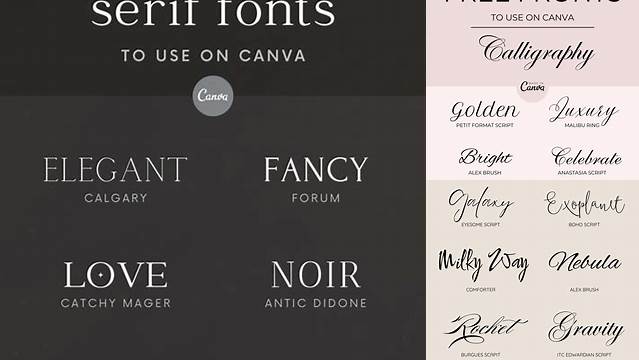
Canva's Elegant Fonts: A Design Guide
Canva, a powerhouse of design, offers a treasure trove of fonts to spice up your projects. But, with so many choices, how do you pick the ones that scream "elegance"? Fear not, design enthusiasts! We're diving deep into the world of elegant fonts in Canva, exploring what makes them special, and how you can use them to create stunning visuals. Whether you're crafting social media posts, presentations, or marketing materials, the right font can make all the difference. Get ready to unlock the secrets of sophisticated typography!
What Defines an Elegant Font?
Before we jump into the font recommendations, let's nail down what makes a font "elegant." Elegant fonts typically possess certain characteristics that lend a touch of sophistication and class to your designs. Think of it as the font equivalent of a perfectly tailored suit or a flowing evening gown – it's all about the details!
First off, legibility is key. While some fonts may look fancy, they become useless if your audience can't easily read them. Elegant fonts often strike a balance between style and readability. They are designed with careful consideration of letterforms, spacing, and overall structure, ensuring that the text is both visually appealing and easy to understand. This is particularly crucial for body text, where readability trumps all else. On the other hand, for titles and headings, you can get away with a bit more flair. These fonts may be more decorative, but still maintain a sense of clarity.
Secondly, the font's style contributes a great deal to elegance. Serif fonts frequently top the list of elegant choices. Serifs are the small strokes or "feet" at the ends of the letters, and they bring a classic, refined feel. They evoke a sense of tradition, authority, and trustworthiness, making them ideal for branding and formal documents. Think of fonts like Playfair Display, Lora, and Crimson Text—they’re your go-to choices for a touch of sophistication. However, sans-serif fonts can also be elegant. The clean lines of fonts like Raleway, Montserrat, or Lato can convey a sense of modern elegance, particularly when combined with a minimalist design.
Then, consider the font's weight and style. Light or delicate weights often appear more elegant than bold ones. However, a heavier weight can also be elegant, especially in headings, if used with proper spacing and in balance with other design elements. Italics and condensed fonts can add a further level of sophistication, but use them sparingly to avoid overwhelming the reader. Finally, elegance often lies in subtlety. Avoid overly ornate fonts that might distract from your message. Instead, choose fonts that complement your overall design, allowing the content to shine.
Top Elegant Fonts in Canva
Now for the fun part: the fonts! Canva offers a wide selection of elegant fonts. Here are some of the top picks, categorized to help you choose the perfect one for your project. Remember, the best font is the one that perfectly complements your design's message and aesthetic.
Serif Fonts: Classic and Timeless
Serif fonts are the backbone of elegance. They exude a sense of tradition and sophistication. Here are some of the best serif fonts available in Canva:
- Playfair Display: This is a fantastic choice for headings and titles. Playfair Display has a high contrast, making it elegant and eye-catching. It's perfect for projects that want a touch of luxury and classic design. Use it to make your headlines really stand out. The font is very readable even at larger sizes.
- Lora: Lora offers a slightly more modern take on a serif font. It's a well-balanced and versatile font that works well in both body text and headings. Lora gives a design a warm, friendly, yet professional feel. It's an excellent choice for long-form content where readability is paramount. It blends well with sans-serif fonts, too!
- Crimson Text: If you're after a traditional, bookish feel, Crimson Text is your go-to. This font is excellent for creating a sense of authority and heritage. It's best suited for body text, but can also be used in headings for a formal design.
Sans-Serif Fonts: Modern Elegance
Sans-serif fonts can be just as elegant as their serif counterparts. They offer a more contemporary and clean look. Here are some recommendations.
- Raleway: This is a versatile sans-serif font that looks great in many contexts. Raleway is available in various weights, allowing you to create different visual effects. It's great for headings, subheadings, and body text. With its sleek, clean lines, it is a perfect selection for designs aiming for a contemporary feel.
- Montserrat: This font is highly versatile. It's excellent for everything from headlines to body text, offering a clean, modern aesthetic that works well across various design projects. This font is super readable, no matter the size, making it perfect for both digital and print media.
- Lato: Lato is another great choice for a clean, readable sans-serif font. It has a friendly, approachable feel, while still maintaining a level of professionalism. Lato is great for designs that want to appear friendly, but maintain a sense of sophistication. It's easy on the eyes and very versatile.
Script and Display Fonts: Adding Flair
Script and display fonts can add a touch of elegance, but they should be used sparingly. They're great for adding a unique flair to your designs. These are best for titles, headings, or small bursts of text. Let's look at a few:
Conclusion: Unleash Your Design Potential
Choosing the right fonts in Canva can truly transform your designs, adding a touch of elegance, sophistication, and polish. By understanding what defines an elegant font, exploring the top font choices, and learning how to combine them effectively, you're well on your way to creating visually stunning projects. Remember to experiment, play around with different combinations, and find the fonts that best suit your style and project needs. Have fun, and keep designing!